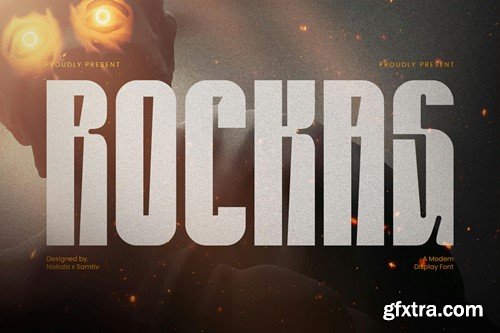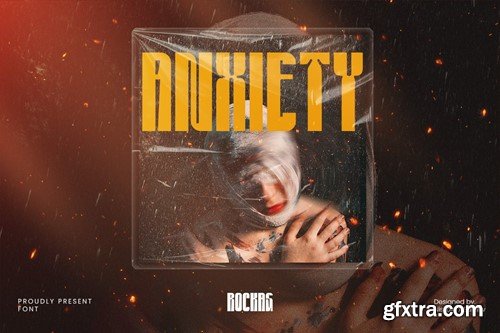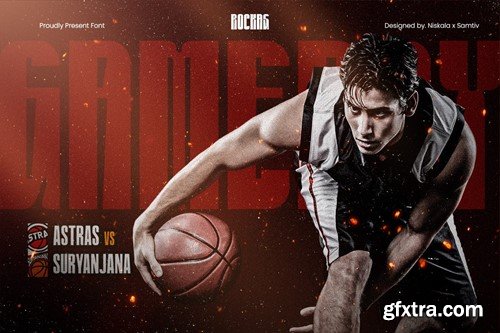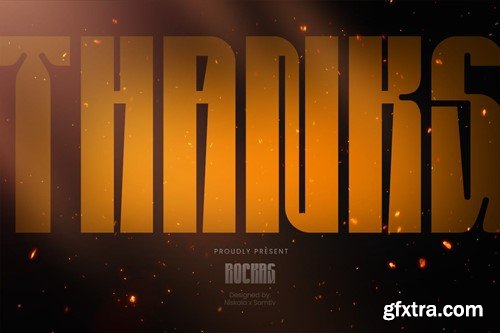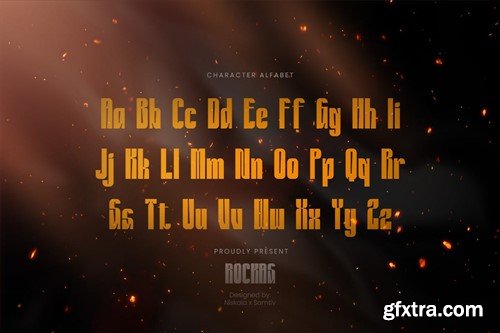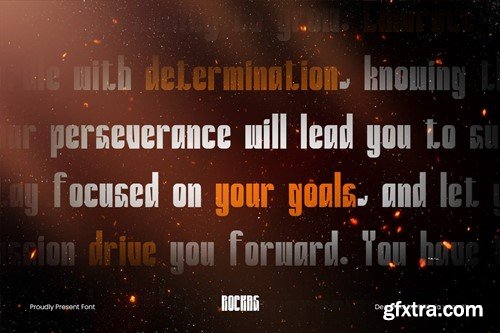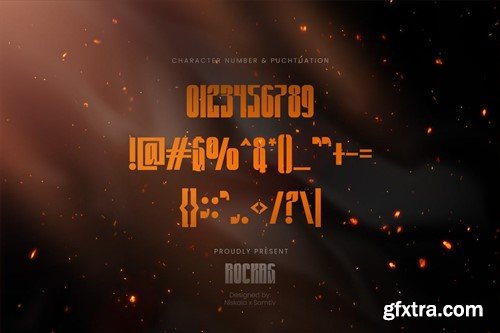
洛克斯 - 一种现代运动衬线字体 8RGP9RB
Rockas - A Modern Sport Display Font
Rockas an awesome sports font with wide italic fonts, modern cutouts, and a dynamic slant. Ideal for sports titles, Football matches, game logos, and monograms or other modern dynamic text. Rockas compares favorably with legibility and size, creating the effect of power. check it out and grab it right away. Download Rockas for your next project today. File Included : Thank you for checking and I hope you enjoy it. Always put your heart into it and don’t worry about trying. I hope you have as much fun using it as I did making it